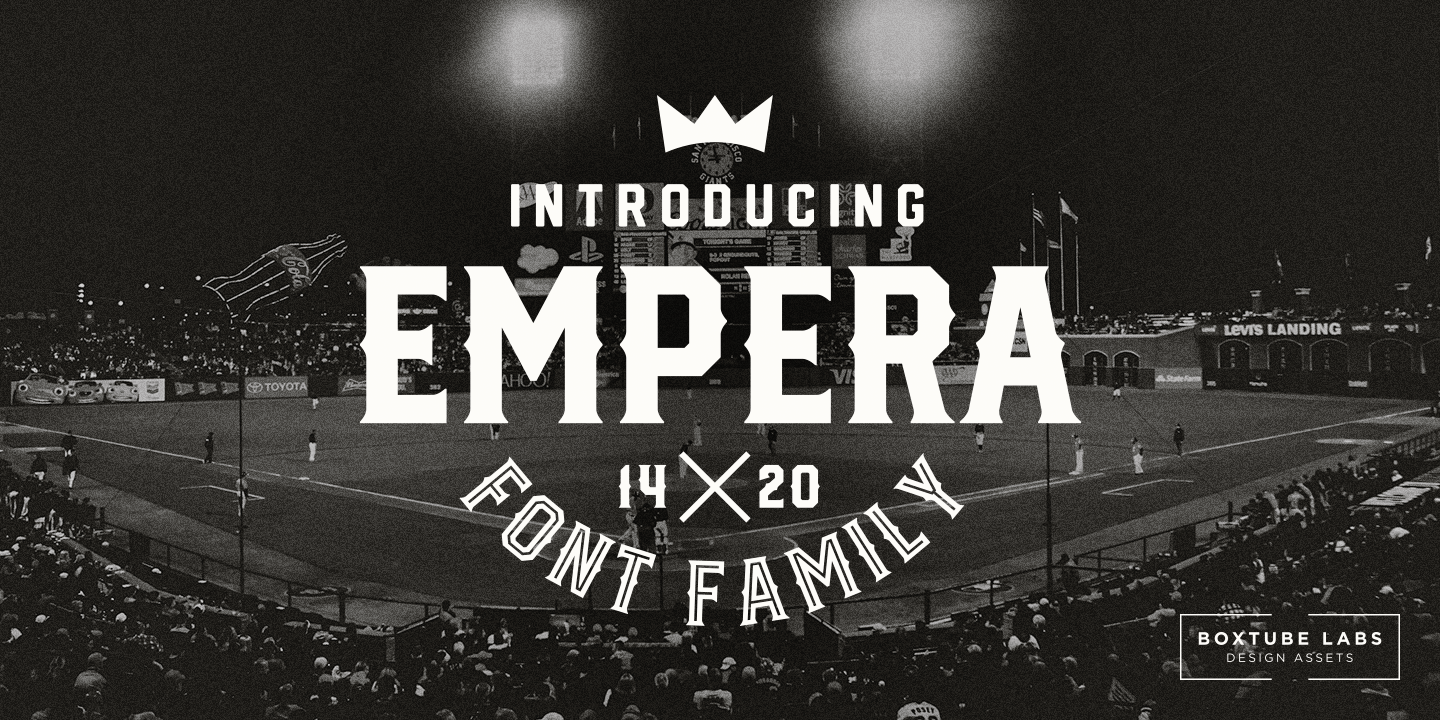
Empera Font Free Download is a sleek and modern serif typeface perfect for luxury branding, editorial headlines, book covers, formal invitations, and corporate design projects. Its refined letterforms bring elegance and professionalism to any visual communication.
What makes this font so exciting is its perfect blend of classic serif style with contemporary touches, offering versatility and sophistication. Empera Font enhances readability while adding a distinguished flair to your designs.
Empera Font comes in multiple weights including Light, Regular, Semi-Bold, and Bold, allowing designers to create rich typographic hierarchies and dynamic layouts.
Elevate your projects with the refined and polished look of Empera Font Free Download, and let your designs speak volumes with class and clarity.